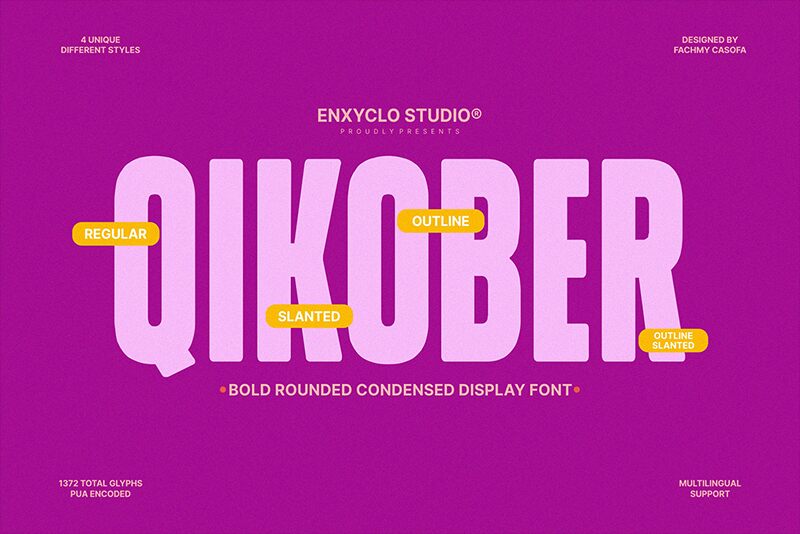
NCL Qikober Demo
NCL Qikober font by Enxyclo Studio is a condensed sans serif font with geometric rounded letterforms. It’s modern, minimalist, impactful, and retro-inspired making it fit both classical and contemporary styles. The typeface is clean, structured, pleasant to read at different sizes, and has less intrusive characters that are attention-stealing.
This free display font is best for headlines in posters and magazines mainly. Better yet use it for packaging design, advertising materials like flyers or brochures; branding; social media; TV or online broadcasting overlays; website/blog headings; signage etc.